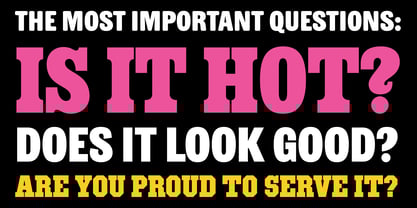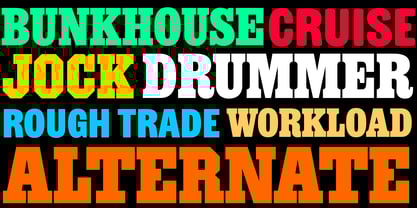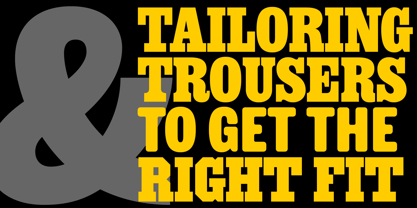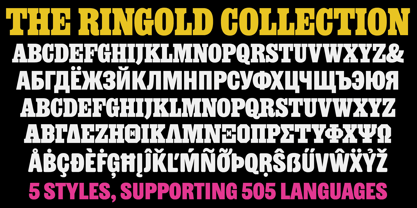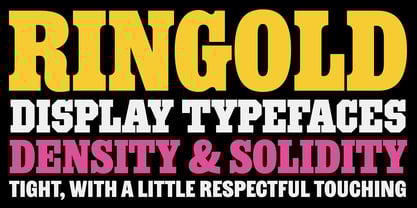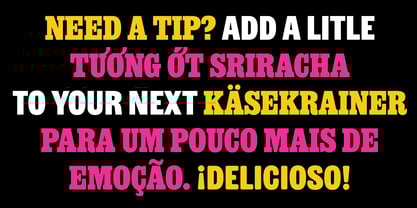
Ringold
von Bijou Type
Die Schriftfamilie Ringold wurde von Dan Rhatigan entworfen und von Bijou Type veröffentlicht. Ringold enthält 5 Stile und Familienpaketoptionen.
Ringold is for those bold, solid headlines with letters that need to be tight without quite touching. Adjust the tone of your text with faces within the family that share the same proportions and density, but with a shift in personality from one style to the next. Ringold Clarendon is a bit whimsically nostalgic. Ringold Slab is its sharper, more buttoned-down cousin. Ringold Gym beefs up the Slab and makes it more architectural. Ringold Sans takes off the serifs but holds on to some of the warmth. Ringold Soft is a smoother, friendlier spin on the Sans. The 5 styles each support about 505 languages.
Designer: Dan Rhatigan
Bijou Type is home to typefaces developed by Dan Rhatigan, an experienced typographer whose skills and sensibilities have been honed by years in the type industry working with clients big and small.After managing type development for years at both Monotype and Adobe, Dan has established Bijou Type for his own work, informed by a decades-long design career that dovetails with personal work in zine publishing and research in type history. Bijou typefaces are the result of ideas that have simmered for quite a while, fed by Dan’s deep fascination with all things typographic.